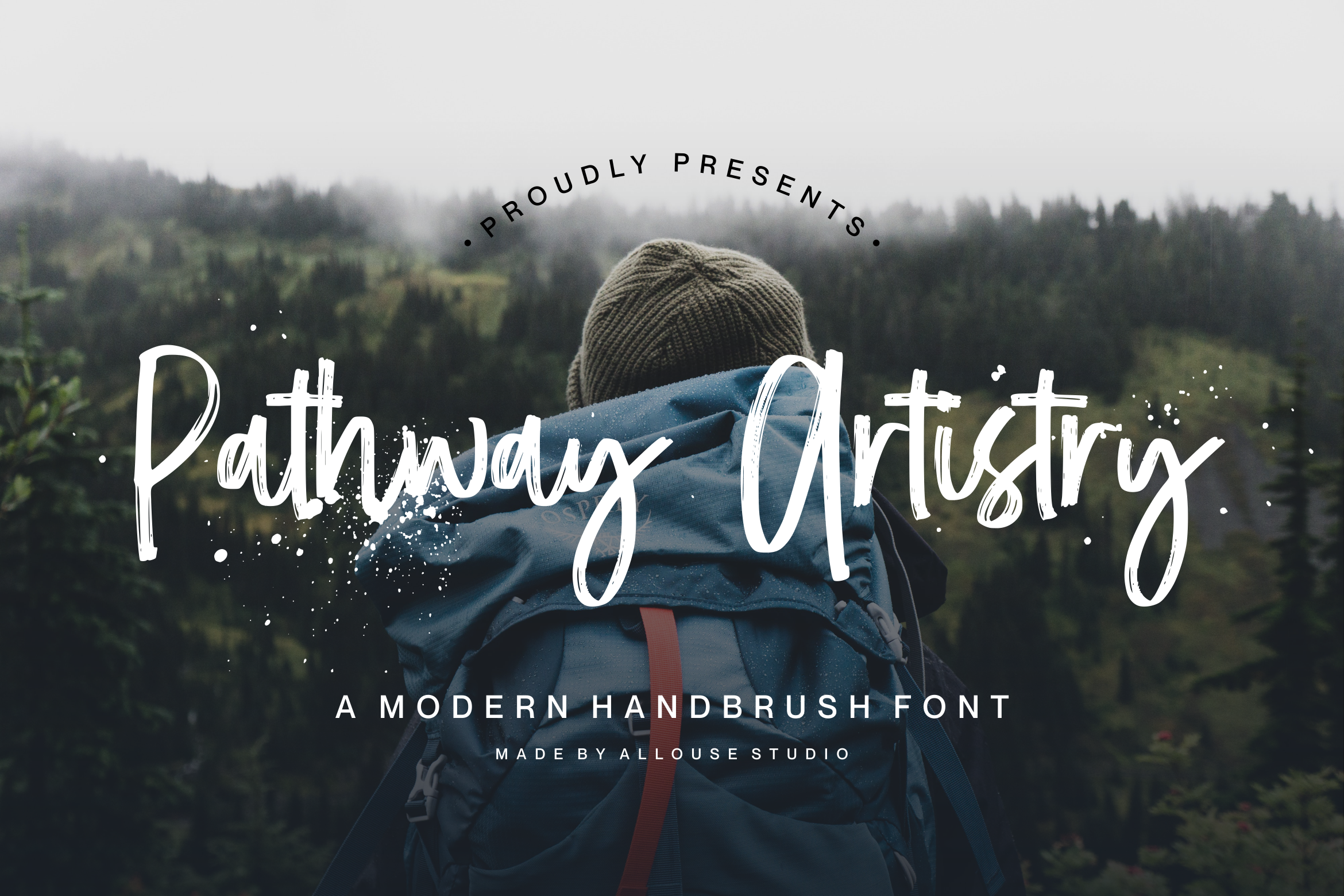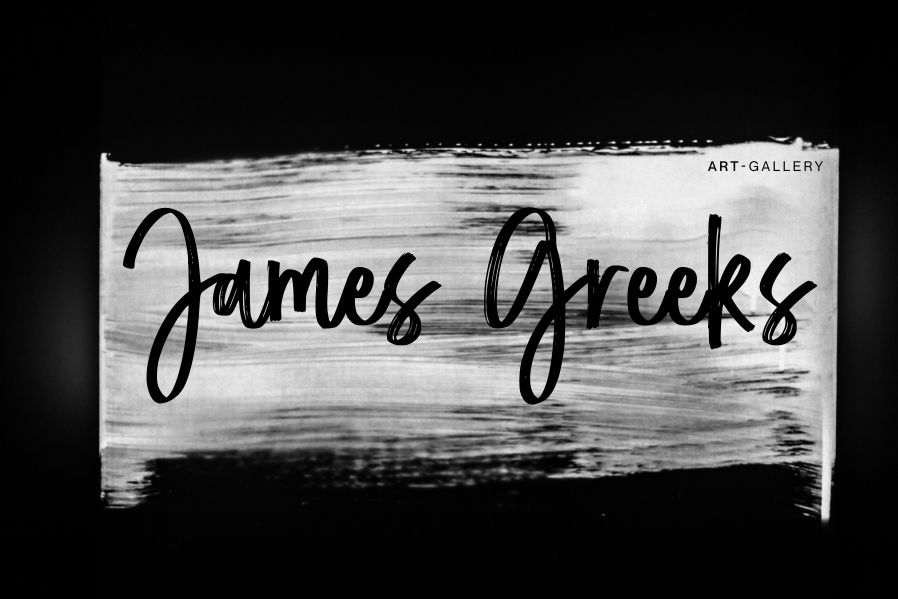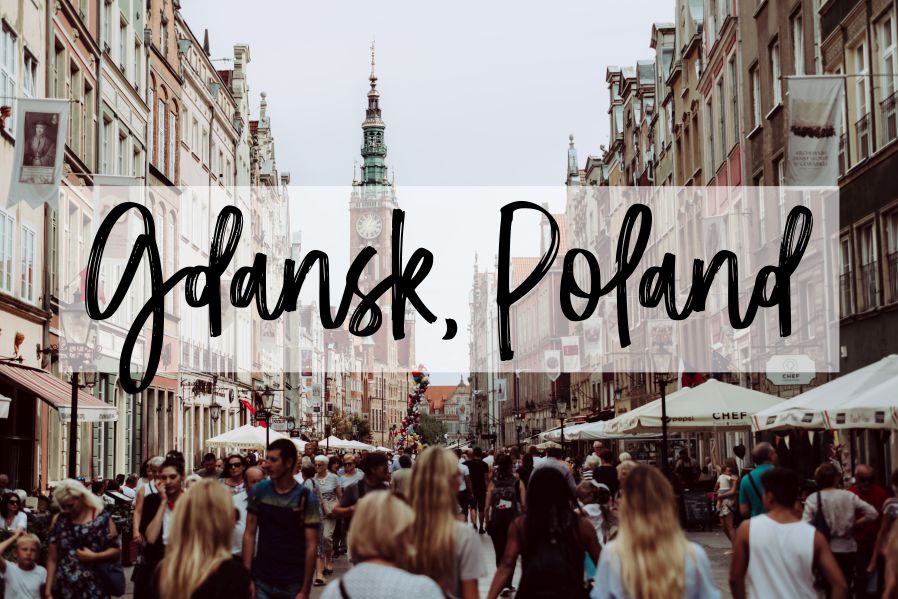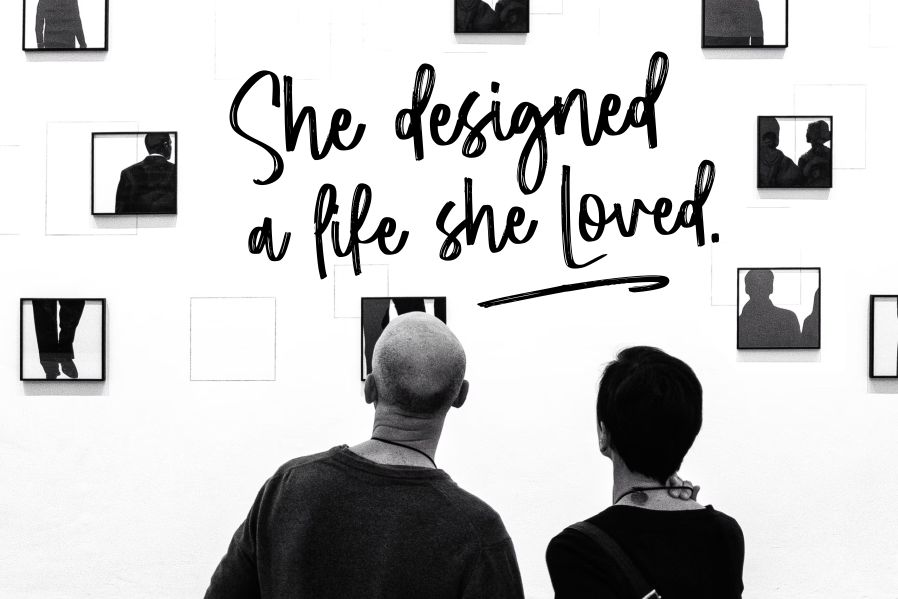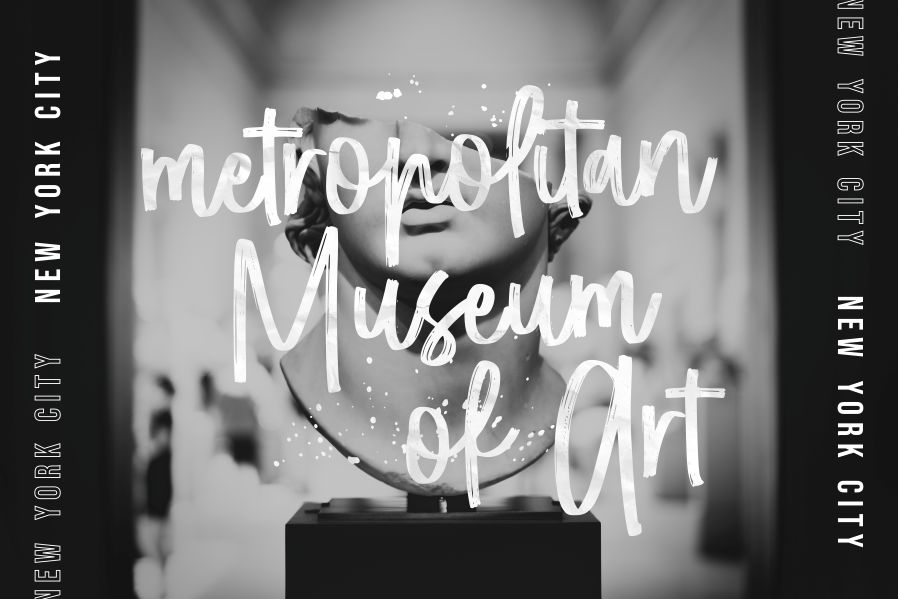
Pathway Artistry Font
Pathway Artistry Script Font
This is a brushed and chic script font. It is perfect for product packaging, branding project, magazine covers, social media, wedding, or just used to express words above the background.